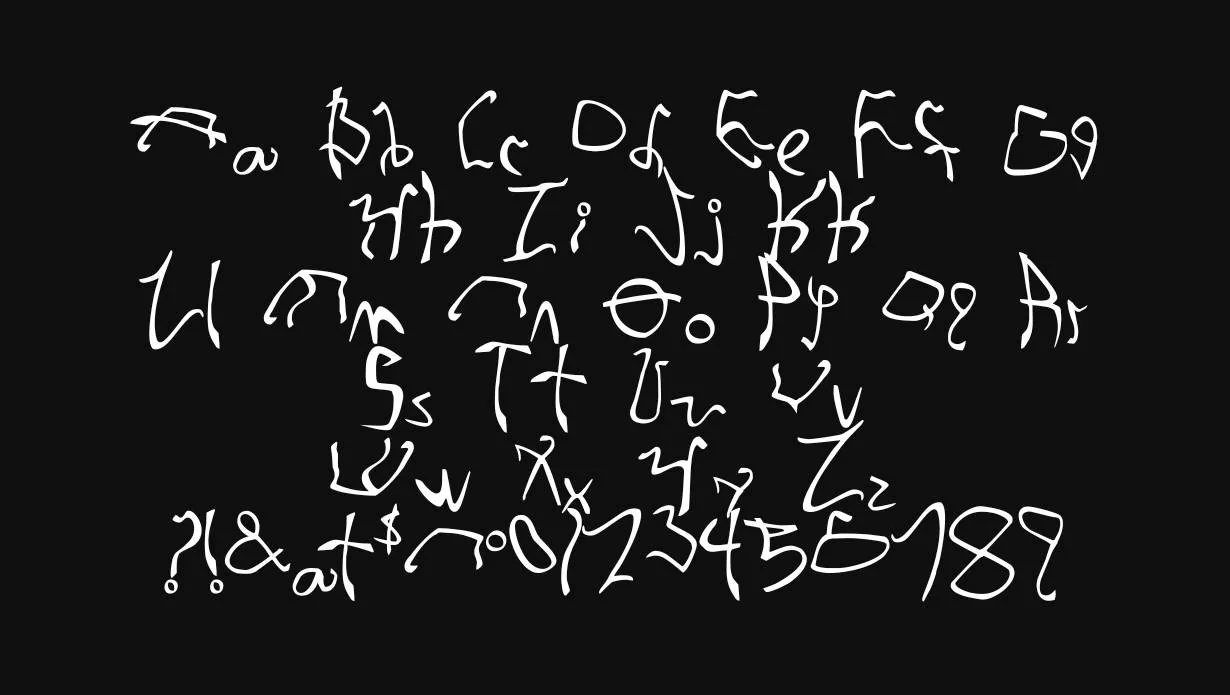
StretchedStrung Font brings a unique and playful touch to your designs. With its stretched and strung-out appearance, this font is perfect for projects that seek a quirky and unconventional vibe. Use it for posters, album covers, or any design where you want to infuse a sense of creativity and originality.
Technically, StretchedStrung Font is crafted with attention to detail, ensuring that each letter contributes to the overall dynamic and unconventional look. Its design elements make it a standout choice for projects that aim to break away from the ordinary.